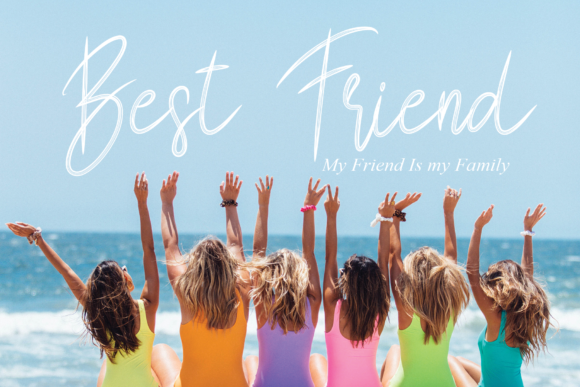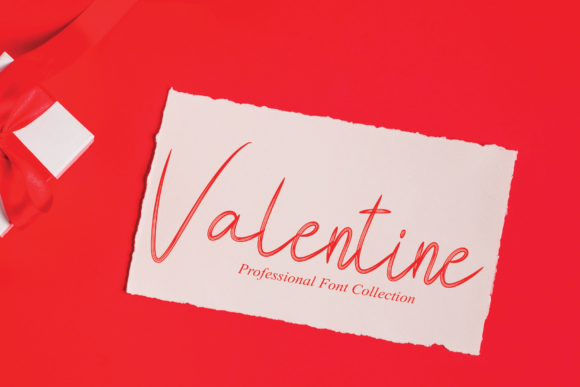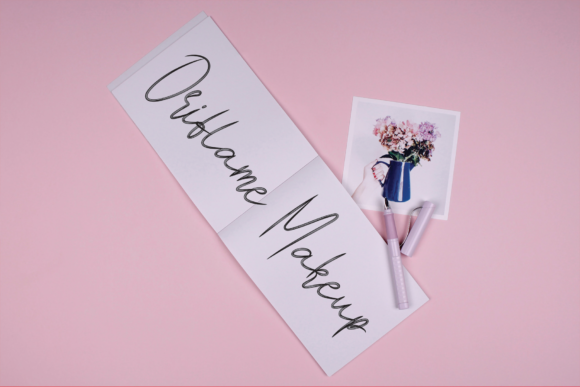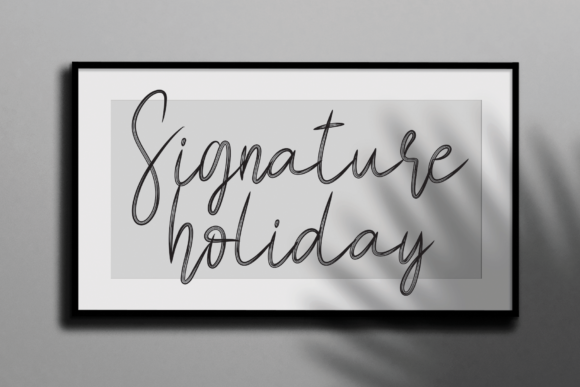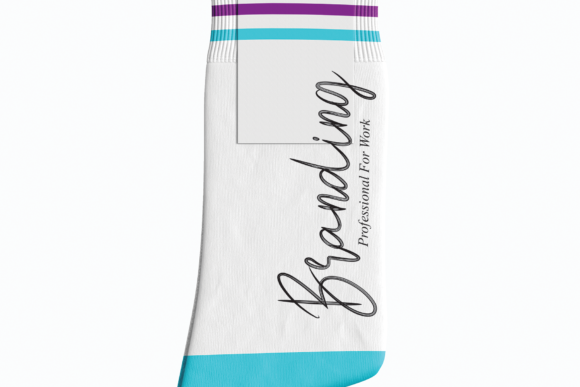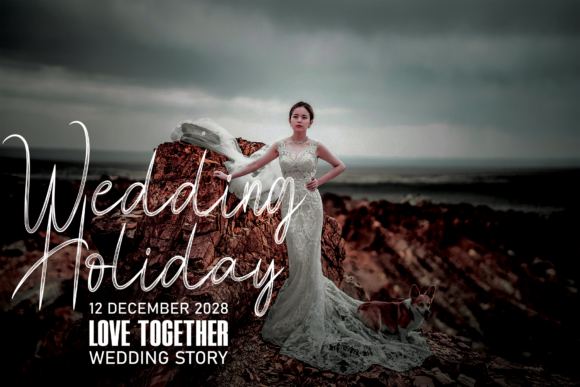
The Belginda Font: A Stylish Script for Creative Projects
I still remember the frustration of working on a fashion branding project, searching for the perfect font to capture the essence of the brand. The client wanted something elegant, yet modern; stylish, yet approachable. I scoured the internet, tried countless fonts, but nothing seemed quite right. That was until I stumbled upon the Belginda font. **Smooth curves, elegant lines, and a perfect balance of style and sophistication** – it was love at first sight!
An Honest Review of Belginda Font
- ✨ Smooth curves and elegant lines: Belginda’s curves are silky smooth, making it perfect for fashion branding, editorial designs, and any project that requires a touch of sophistication.
- ✅ Well-balanced and stylish: This font is a masterclass in balance and style. It’s both elegant and approachable, making it suitable for a wide range of creative projects.
- 💡 OpenType features and glyphs: Belginda comes with a range of OpenType features, including stylistic alternates, ligatures, and glyphs, giving you plenty of creative options.
While Belginda is an excellent font, there are a few minor quirks to be aware of:
- ⚠️ Limited use in body text: While Belginda is stunning in headings and titles, it may not be the best choice for body text due to its script nature.
- 🤔 Some characters may require manual kerning: As with any font, you may need to adjust kerning for certain character combinations to achieve optimal results.
The Designer Inspiration Behind Belginda
While the true story behind Belginda’s creation remains a mystery, it’s easy to imagine that the designer was inspired by the elegant curves of calligraphy and the sophistication of high-end fashion. Perhaps they wanted to create a font that would make designers swoon, and in doing so, crafted a masterpiece that’s both beautiful and functional.
Q: What type of projects is Belginda best suited for?
A: Belginda is perfect for fashion branding, editorial designs, and any project that requires a touch of elegance and sophistication.
Q: Does Belginda come with OpenType features?
A: Yes, Belginda comes with a range of OpenType features, including stylistic alternates, ligatures, and glyphs.
Q: Can I use Belginda in both digital and print projects?
A: Absolutely! Belginda is versatile enough to be used in both digital and print projects, from social media graphics to business cards and brochures.